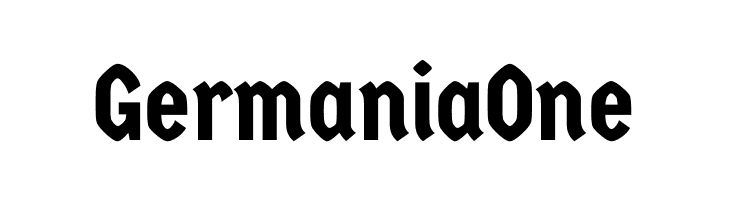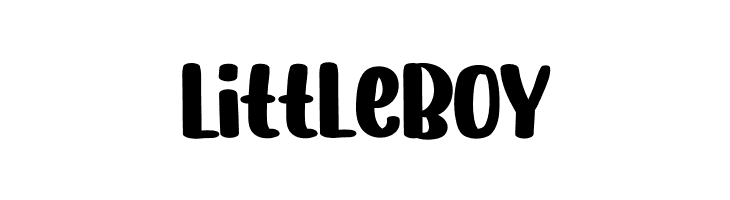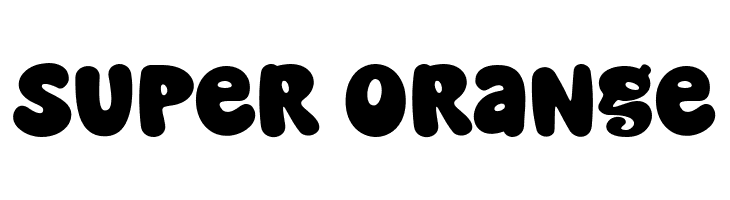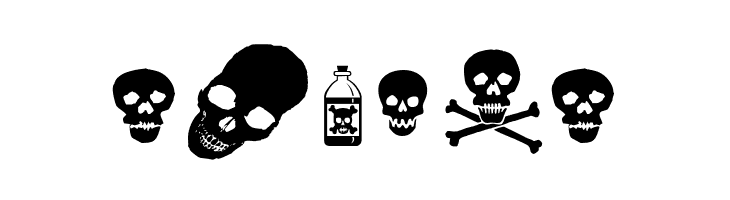
A modern, geometric sans-serif font with uniform stroke widths.
A playful and whimsical font with quirky, irregular letterforms.
A bold, decorative font with a Celtic-inspired design, featuring thick, rounded characters and unique curves.
A modern, handwritten font with elegant, fluid strokes and dynamic character design.
A bold, geometric font with abstract, decorative elements.
A playful decorative font with unique stick figure characters.
A whimsical font with script letters inside four-leaf clover silhouettes.
A pixelated, retro-style font inspired by classic computer graphics.
A tall, narrow font with a sleek, modern design and thin, evenly spaced characters.
An ornate Blackletter-inspired font with intricate details and a vintage gothic aesthetic.
A bold, gothic-inspired font with sharp, angular lines and a dramatic presence.
A display font where each character is a distinct illustrated mask.
Playful handwritten font with rounded edges.
A bold, angular font with sharp, splintered edges for a striking appearance.
A bold, geometric, and condensed font with a modern digital aesthetic.
A bold, graffiti-inspired font with a playful and dynamic style.
A sleek, light italic font with a modern and elegant design.
A bold, geometric font with a futuristic, digital aesthetic.
A playful, casual handwritten font with smooth, flowing lines and a lively vibe.
A bold, geometric font with a three-dimensional shadow effect.
A bold, italicized font with a futuristic engraved style.
A bold, pixelated font with a retro, digital style.
A bold, geometric font with a futuristic and modern design.